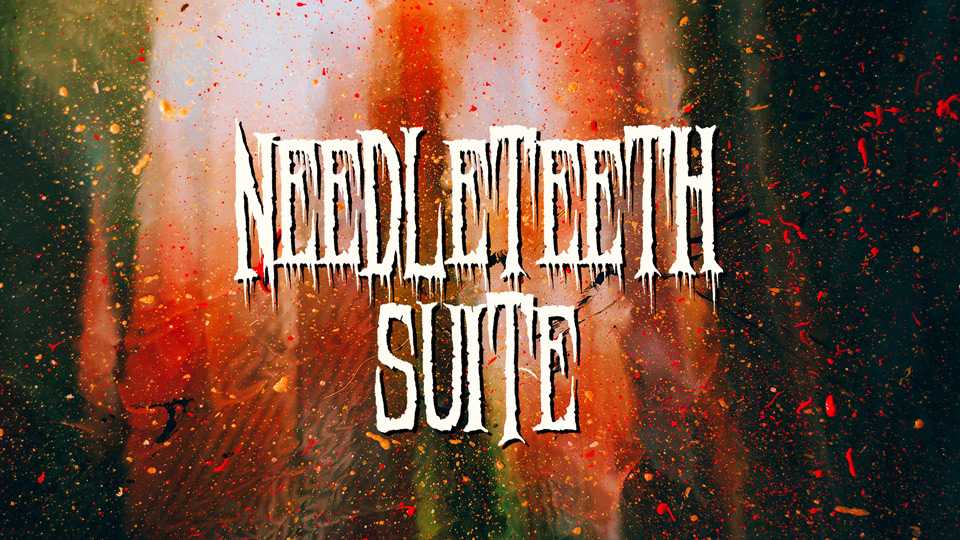
Download Needleteeth Suite typeface, a collection of fonts that channels the ominous elegance of Gothic horror. Each character is intricately crafted with twisted serifs and foreboding details.